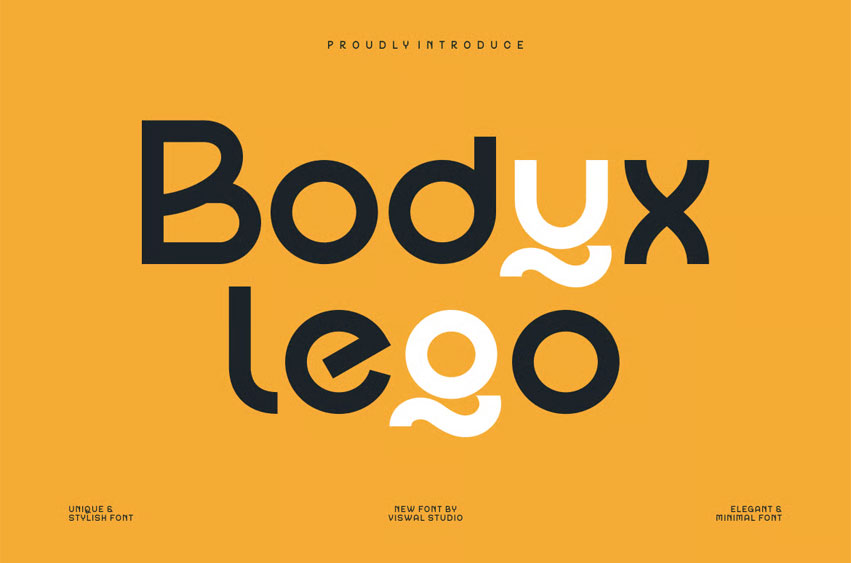
Bodyx Lego Font
Bodyx Lego Font is suitable for badge, labels, logo, branding, magazine, poster and etc. Our fonts have Uppercase & Lowercase, Numeral & Punctuation, Multilingual support and Opentype Features.
For Amazing designs you can mix with other fonts as a complement.